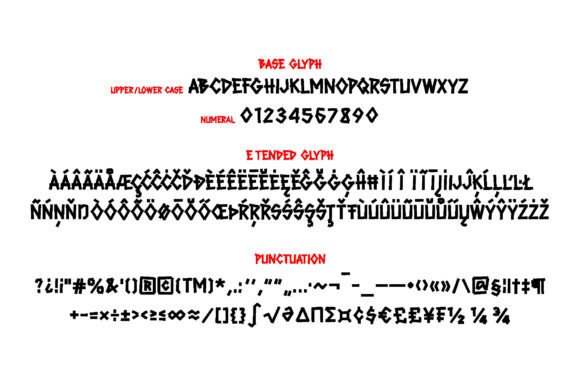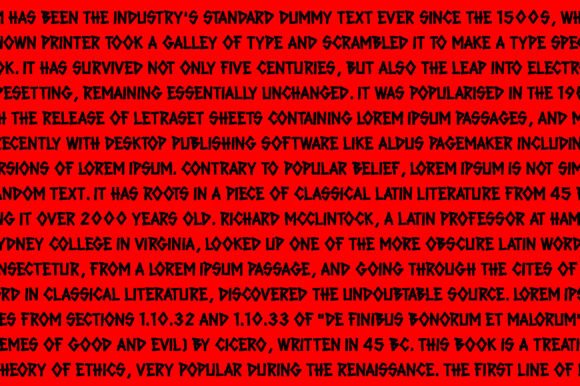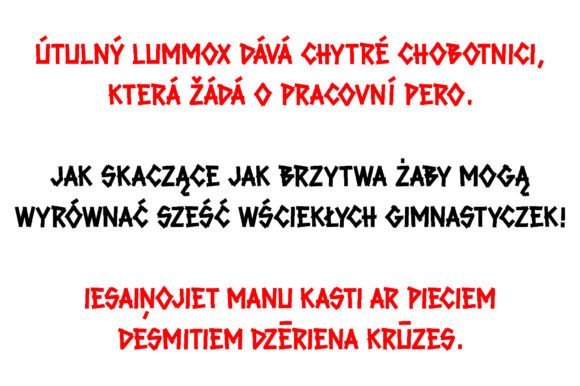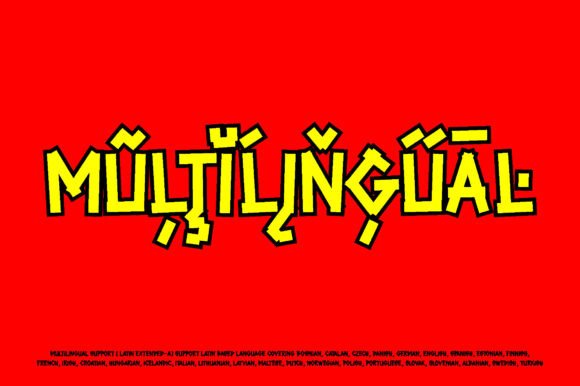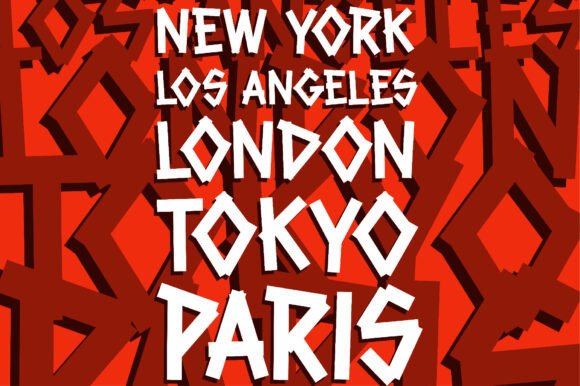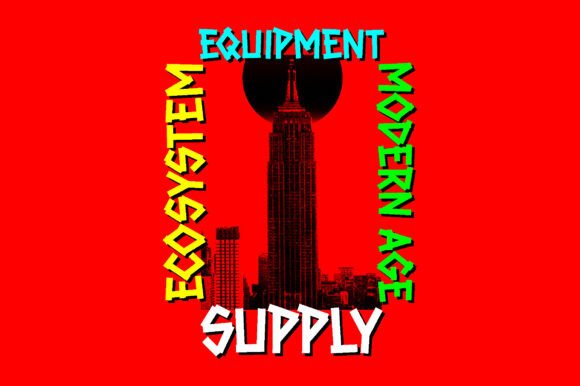
Dash Font: The Ultimate Choice for Bold and Edgy Designs
In the world of typography, fonts play a crucial role in conveying the message and aesthetic of a design. For designers and crafters looking to create eye-catching and trendy designs, the Dash Font is an excellent choice. Inspired by street art and youth culture, this cool and stylish font is perfect for making a statement.
What is Dash Font?
Dash Font is a bold and playful font that draws inspiration from the vibrant and dynamic world of street art. Its unique and edgy lettering style makes it an ideal choice for designers who want to add a touch of personality to their work. Whether you’re creating posters, graffiti, or trendy logos, Dash Font is sure to make your text stand out.
Key Features of Dash Font
- Bold and Playful: Dash Font is designed to be attention-grabbing and fun. Its bold and playful style makes it perfect for creating eye-catching designs that appeal to a younger audience.
- Unique and Edgy: The font’s letters have a distinctive, edgy look that sets it apart from more traditional fonts. This makes it an excellent choice for designers who want to add a touch of personality to their work.
- Street Art Inspiration: Dash Font draws inspiration from the vibrant and dynamic world of street art. This gives it a unique and youthful feel that’s perfect for designs that need to appeal to a younger audience.
- Versatile: Dash Font is a versatile font that can be used for a wide range of design projects. Whether you’re creating posters, graffiti, logos, or social media graphics, this font is sure to make your text stand out.
Use Cases for Dash Font
Dash Font is a versatile font that can be used for a wide range of design projects. Here are some use cases where this font excels:
- Posters: Create eye-catching posters for concerts, festivals, or events using Dash Font. Its bold and playful style is sure to grab attention and make your poster stand out.
- Graffiti: Add a touch of street art style to your graffiti designs with Dash Font. Its edgy and unique lettering style is perfect for creating bold and eye-catching graffiti.
- Trendy Logos: Create trendy logos for fashion brands, restaurants, or entertainment companies using Dash Font. Its bold and playful style is sure to make your logo stand out.
- Social Media Graphics: Use Dash Font to create eye-catching social media graphics that appeal to a younger audience. Its unique and edgy style is perfect for creating bold and attention-grabbing graphics.
Tips for Using Dash Font
Here are some tips for using Dash Font effectively in your designs:
- Use it sparingly: While Dash Font is a bold and attention-grabbing font, it can be overwhelming if used excessively. Use it sparingly to add emphasis to key words or phrases.
- Pair it with other fonts: Dash Font pairs well with other fonts, especially sans-serif fonts. Experiment with different font combinations to create visually appealing designs.
- Experiment with colors: Dash Font looks great in bold and bright colors. Experiment with different colors to find the perfect combination that works for your design.
Dash Font is a cool and stylish font that’s perfect for designers and crafters looking to create bold and eye-catching designs. Its unique and edgy lettering style makes it an excellent choice for designs that need to appeal to a younger audience. With its versatility and range of use cases, Dash Font is sure to become a staple in your font collection.
Get Ready to Make a Statement with Dash Font